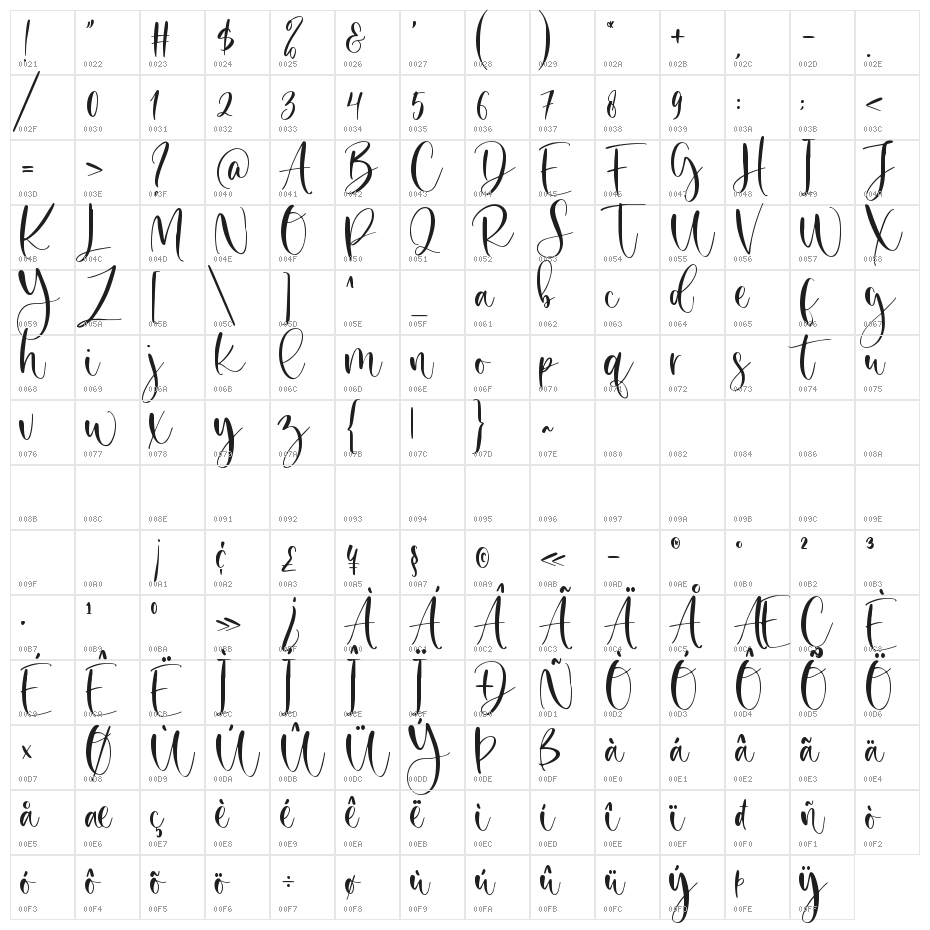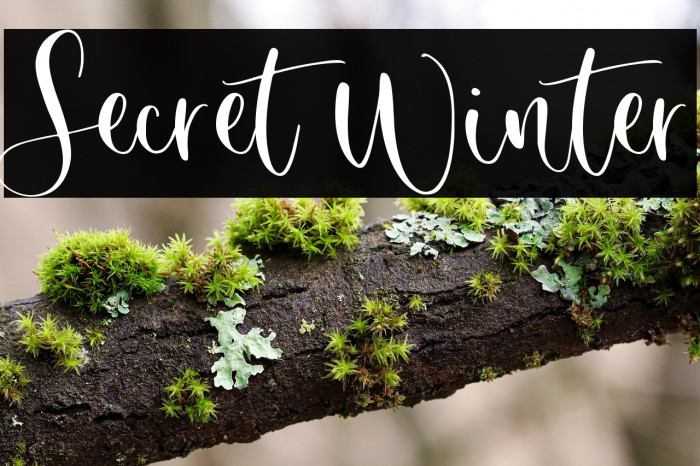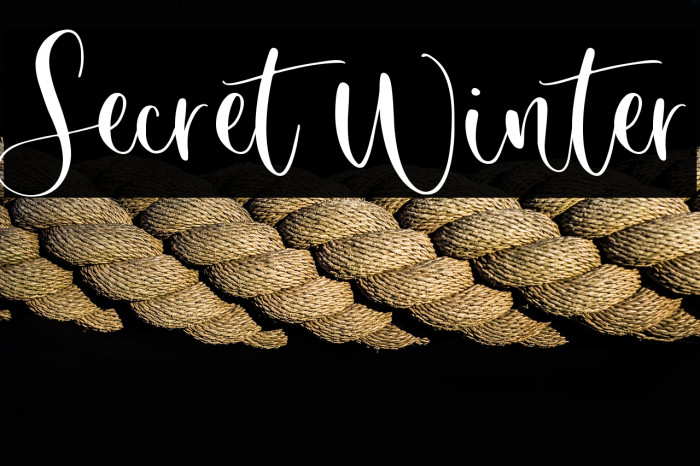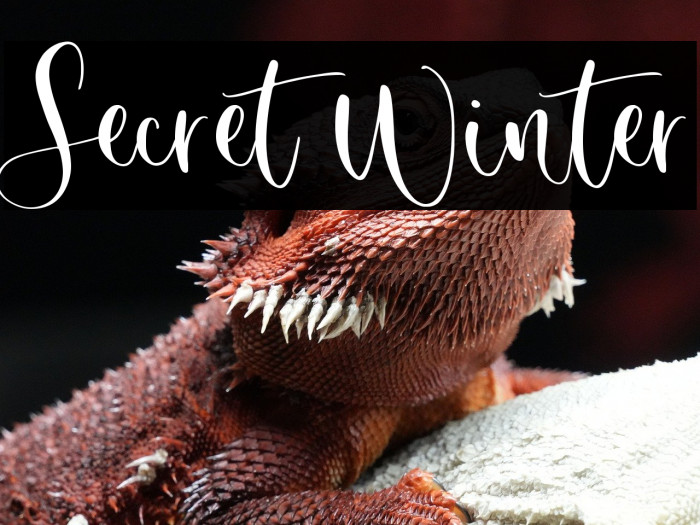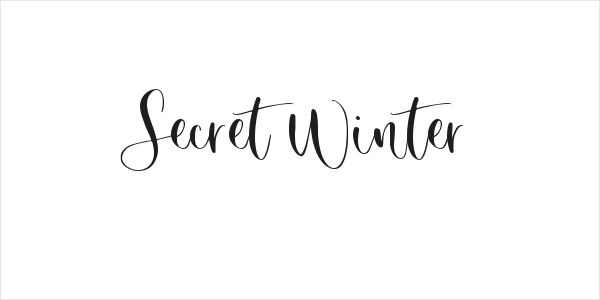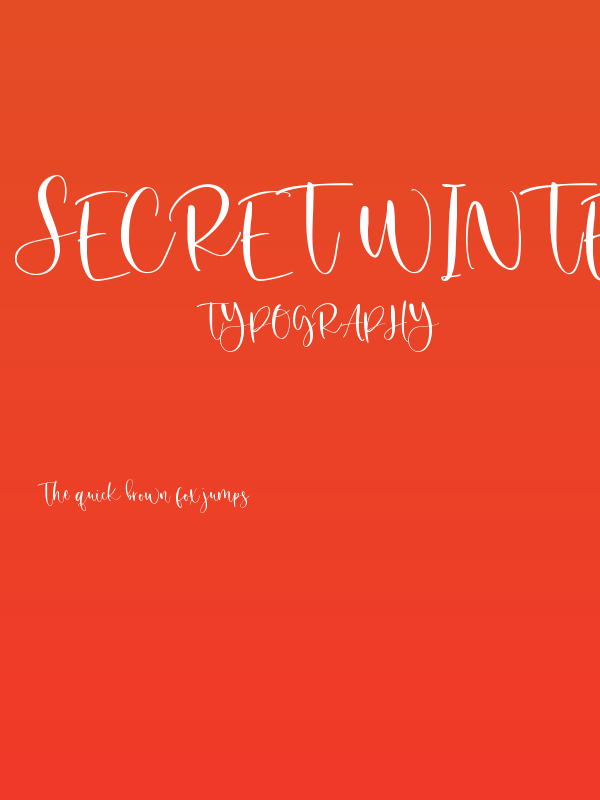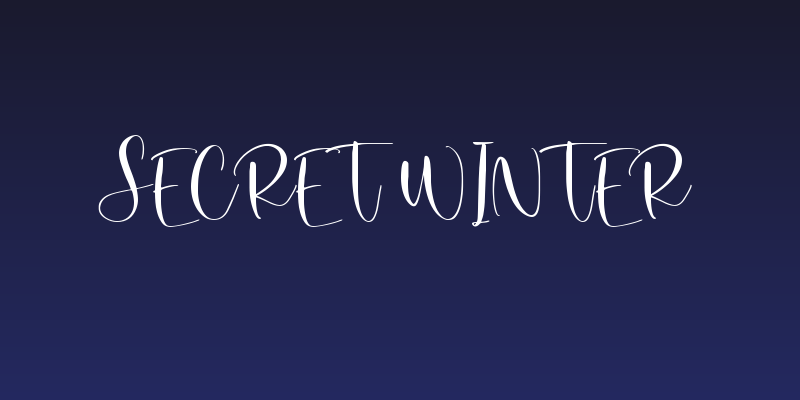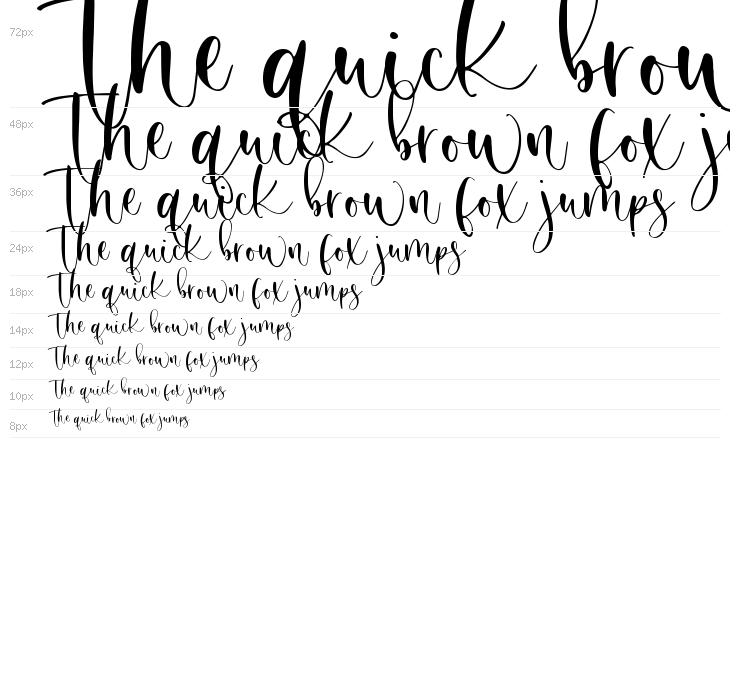
Secret Winter Font
Secret Winter Description
This font features a lively and flowing script style, characterized by its elegant and cursive letterforms. The uppercase letters are bold and dynamic, with sweeping curves and loops that give a sense of movement and grace. The lowercase letters complement this with a slightly more restrained but equally fluid design. Numbers and special characters maintain the same energetic style, making them stand out with their unique flair. The overall appearance is both sophisticated and playful, making it suitable for a variety of creative applications.
| Use Case | Logos, Invitations, Greeting Cards |
| Proposed Projects | Ideal for wedding invitations, greeting cards, branding projects, and any design requiring a touch of elegance and personality. |